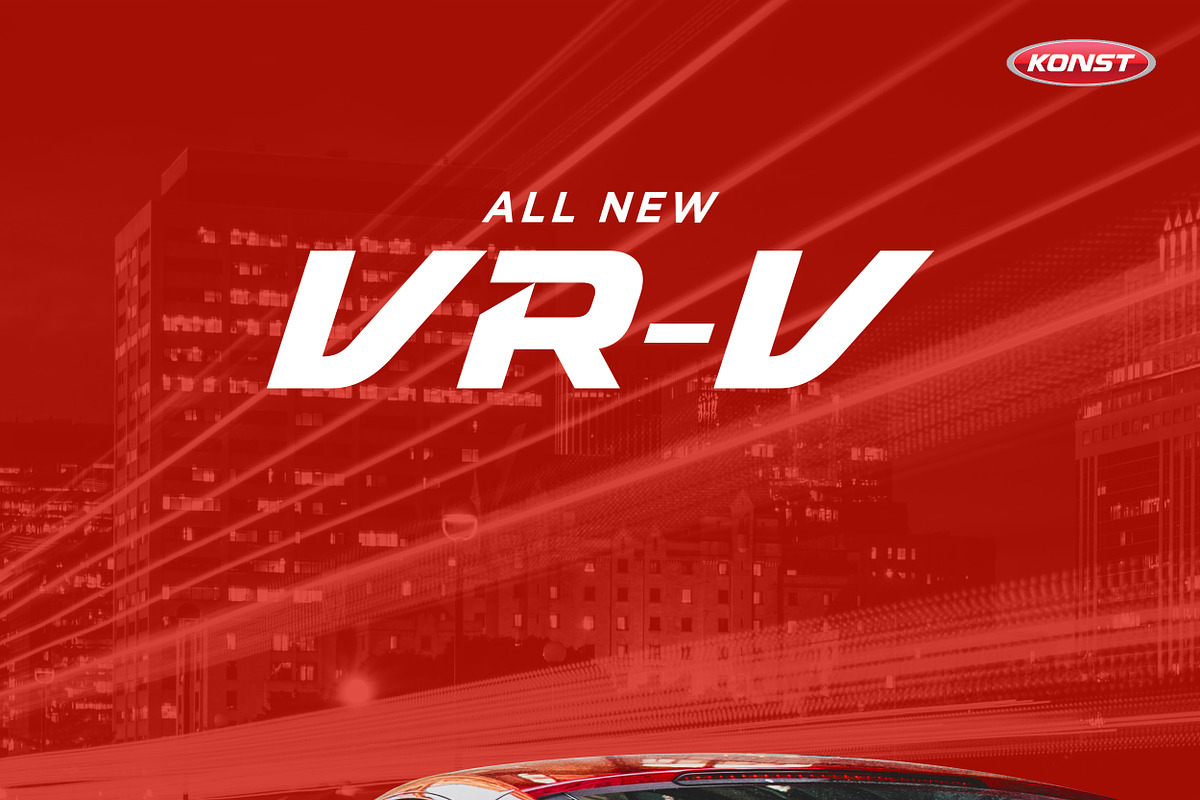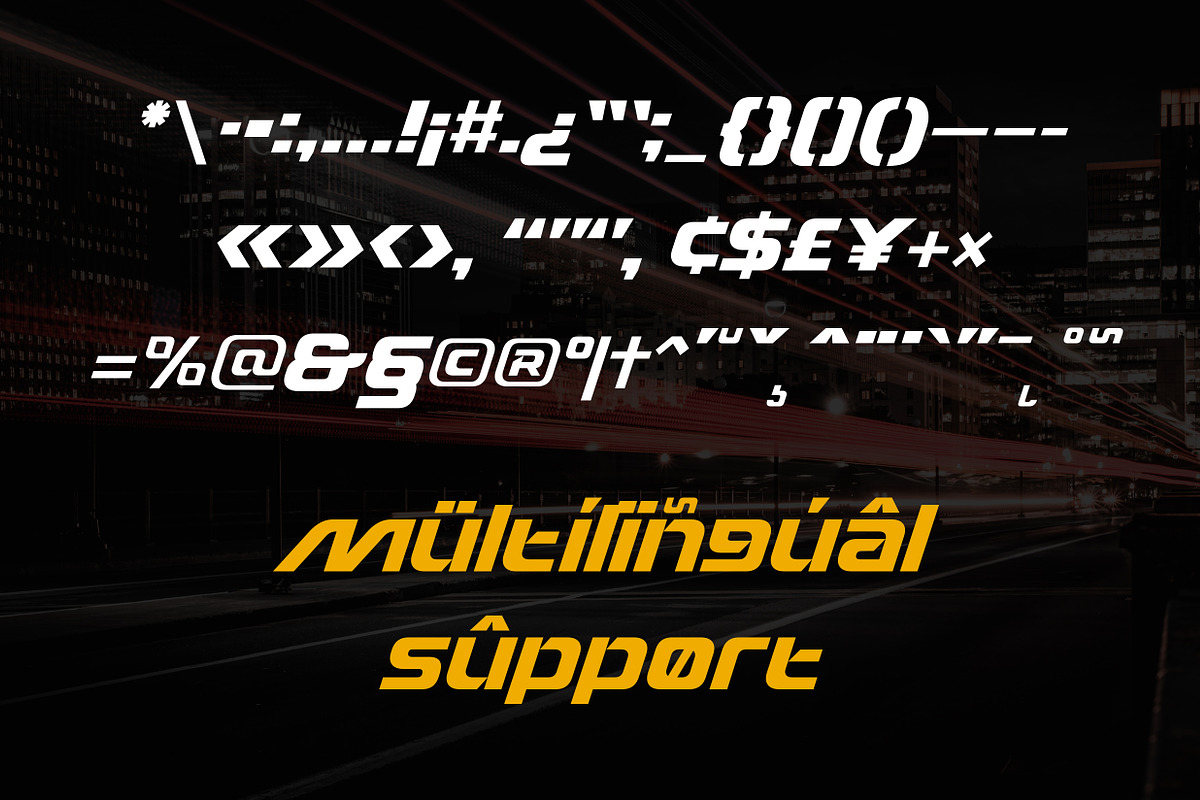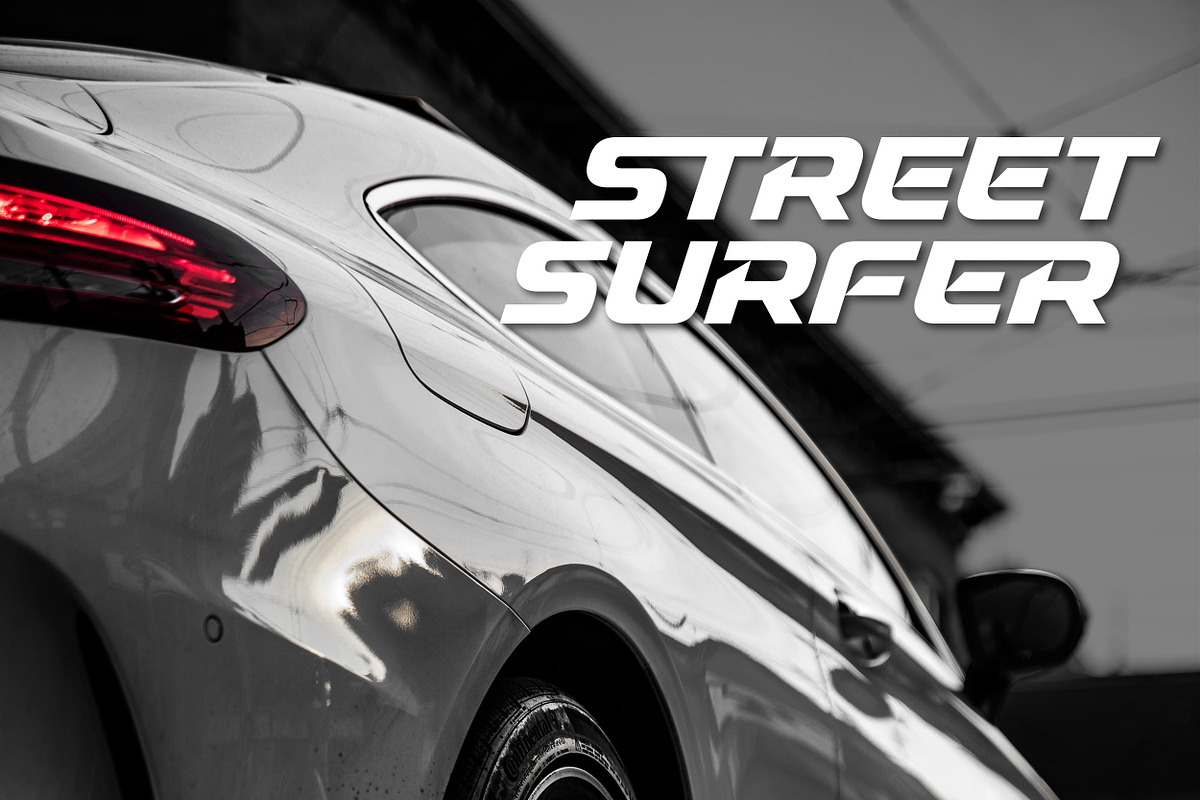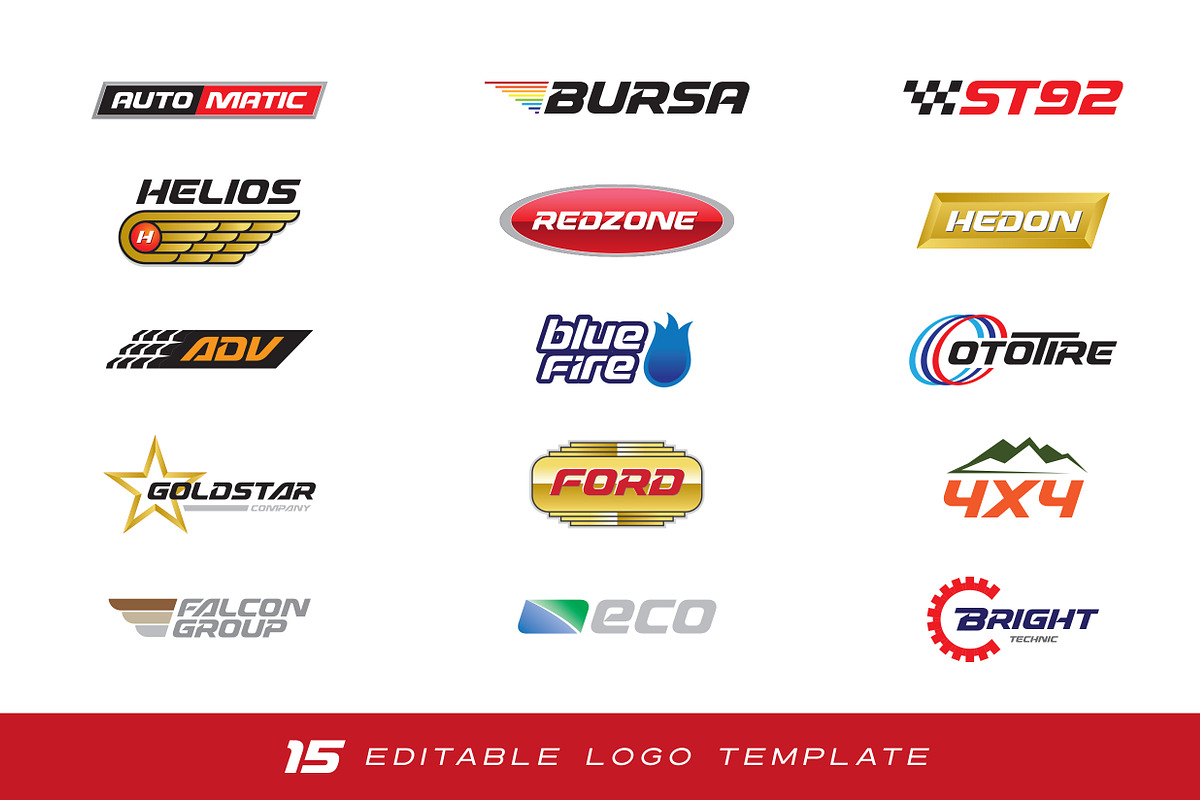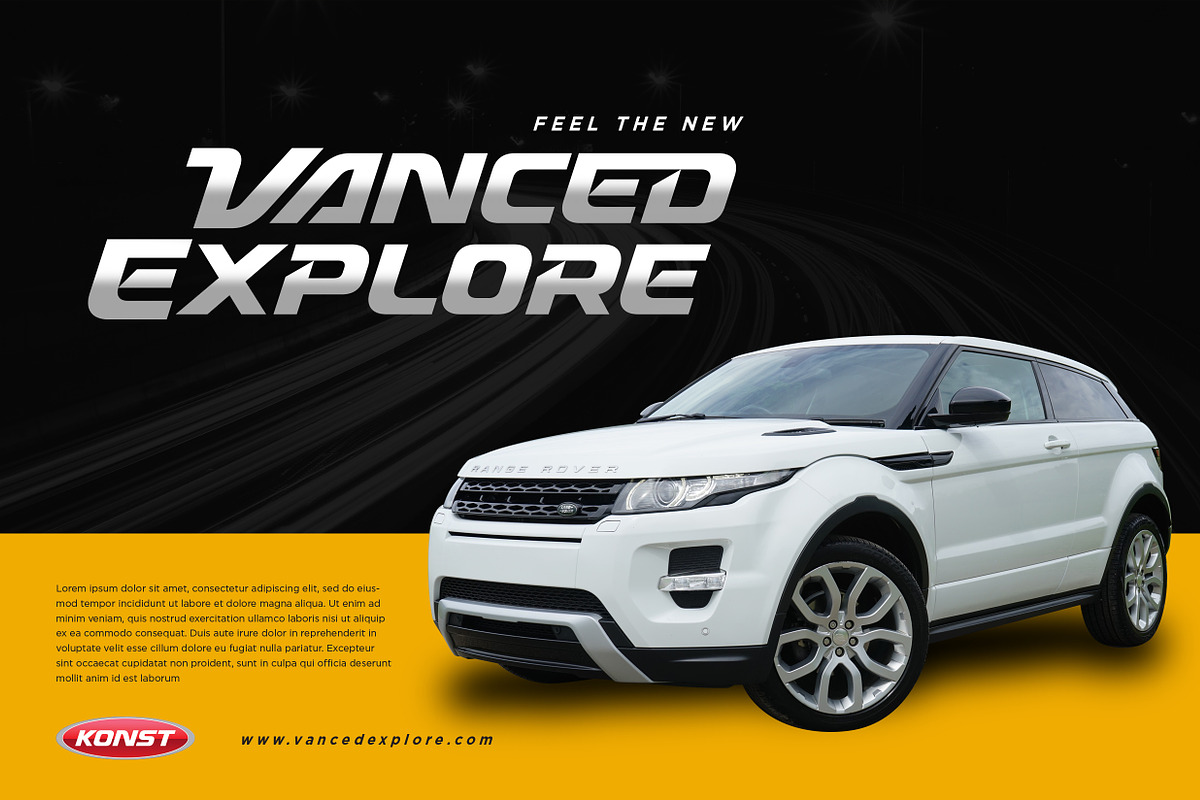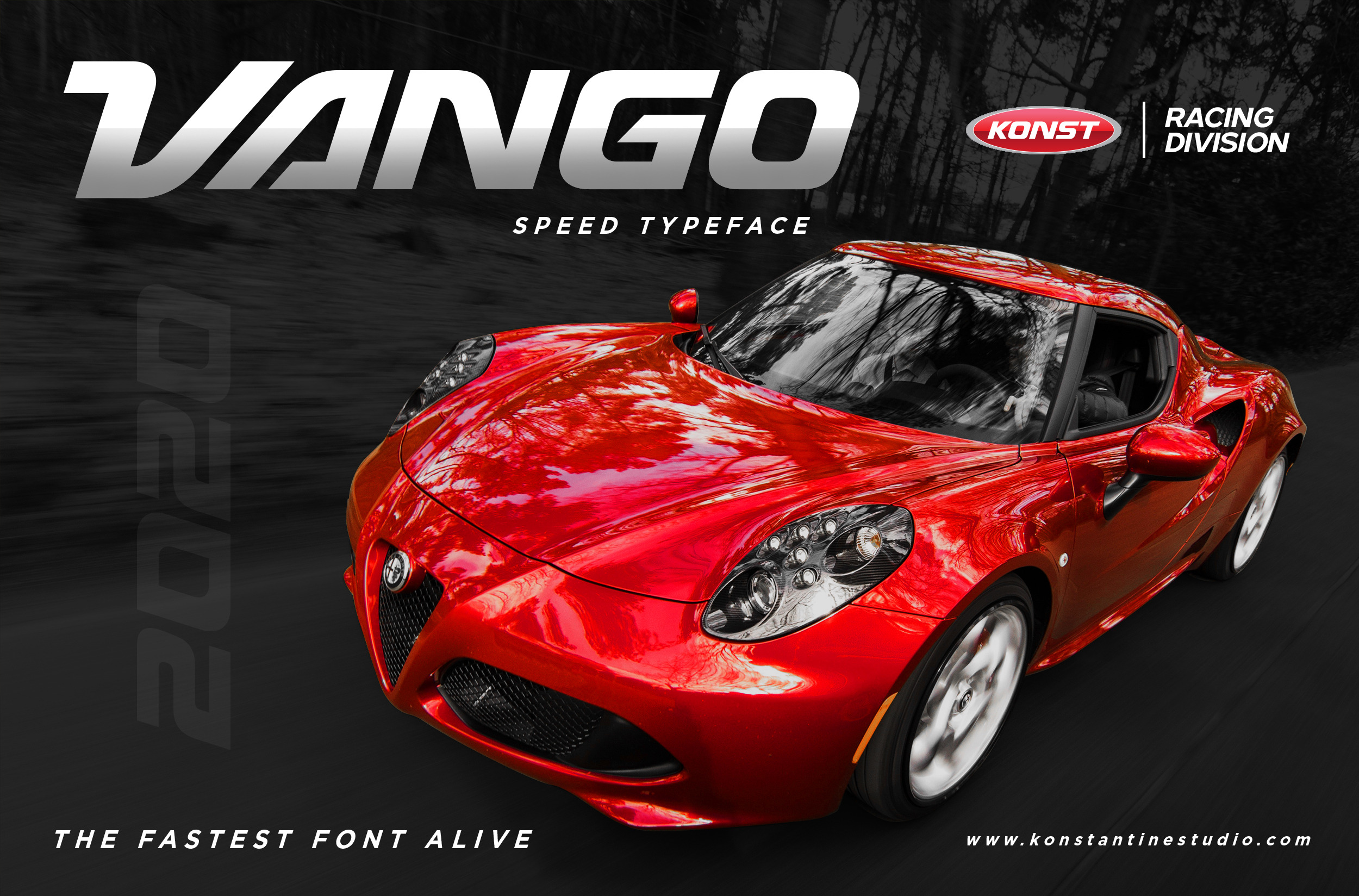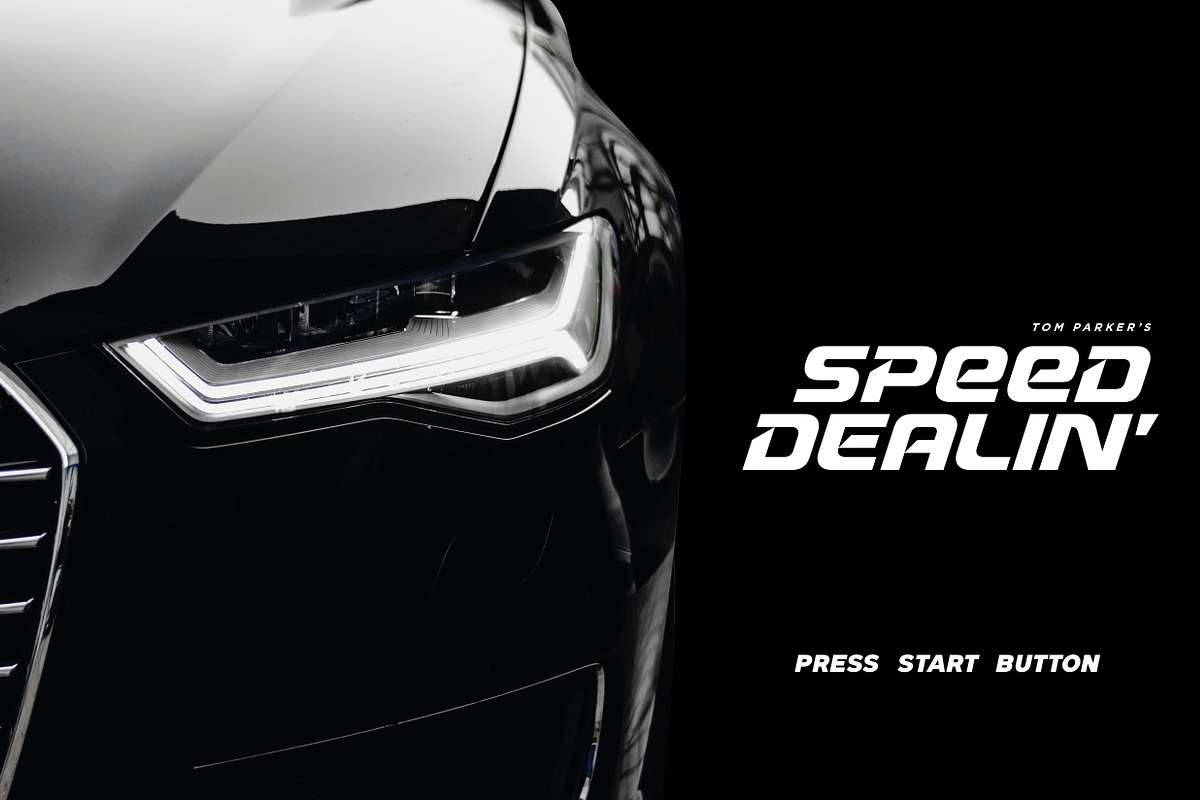
VANGO - Automotive Speed Font
Specialized for the "speed junkie" and "adrenaline seeker" soul, we got you packed up. A nitro boost for your visual needs. Please welcome, VANGO. The fastest font alive.
Inspired by the mid era of vintage and modern automotive visual branding. We build the bold and strong font with total aim to the speed, cars, vehicles, and automotive vibes. Will be a perfect match for the automotive events, branding, logo, cars and motorcycle posters, advertising, anytime you want some more "speed" in your visual project.
- Uppercase & Lowercase letters
- Multilanguage Support
- 15 Editable Logo Templates
Language Support : Danish, Dutch, English, Filipino, Finnish, French, Galician, German, Icelandic, Indonesian, Irish, Italian, Norwegian Bokmål, Norwegian Nynorsk, Portuguese, Romansh, Spanish, Swahili, Swedish, Swiss German, if you doubt with it please type it out in the text box below, i hope it will support your language too :)